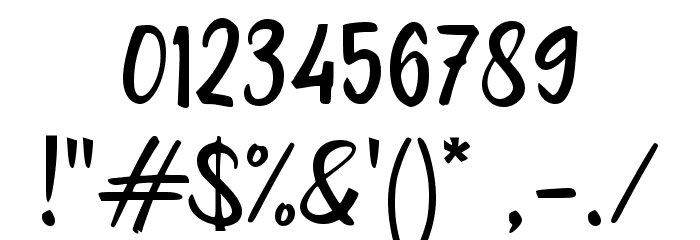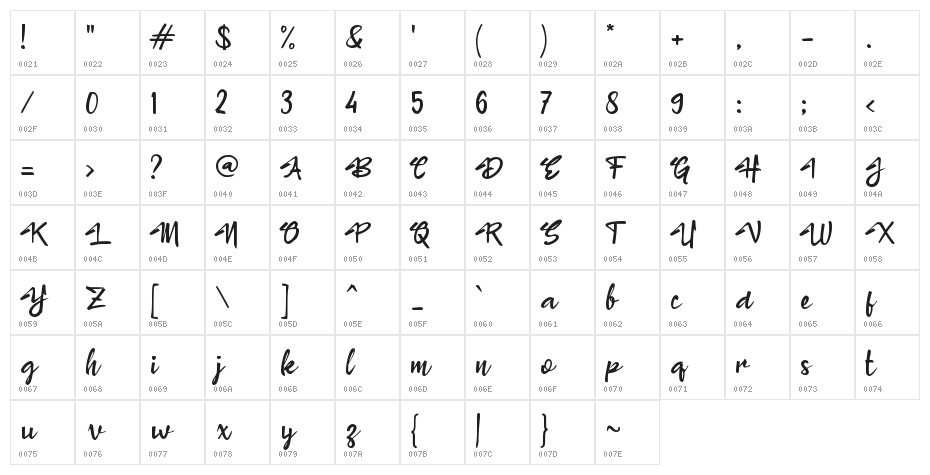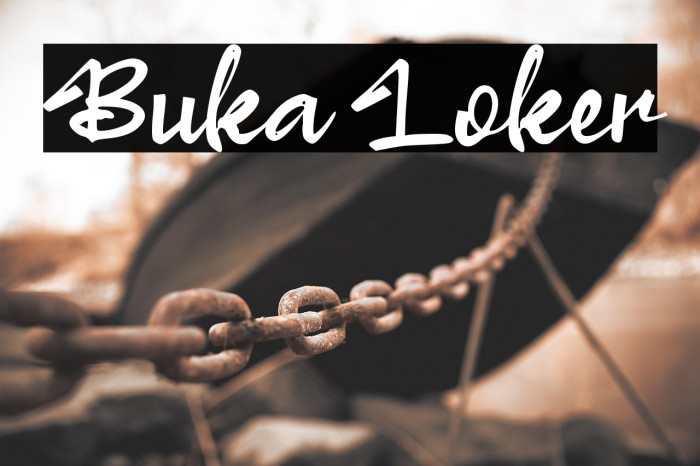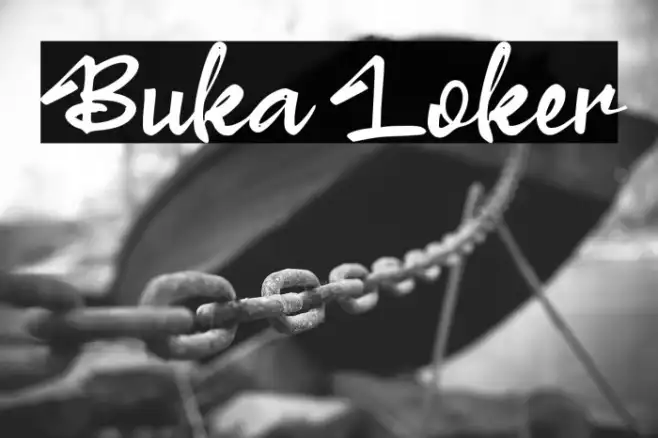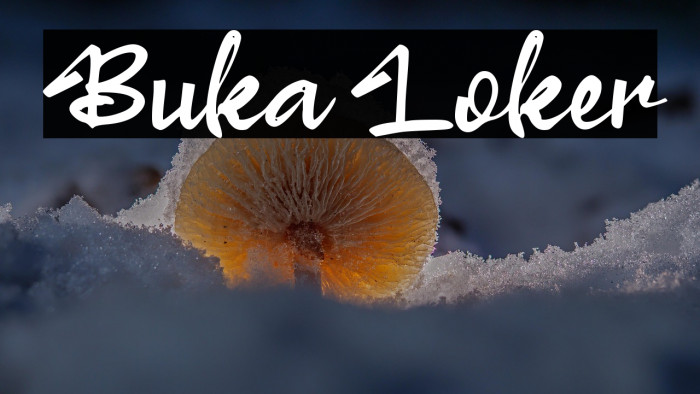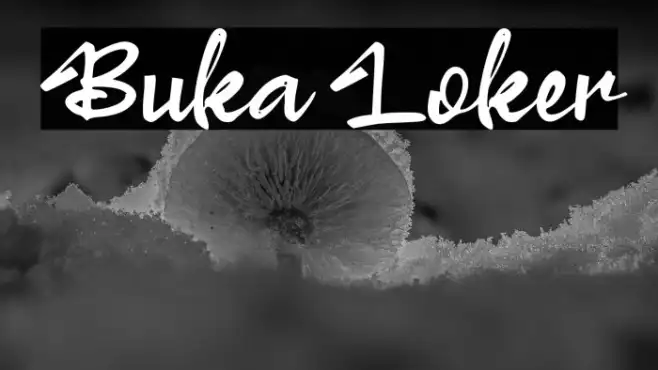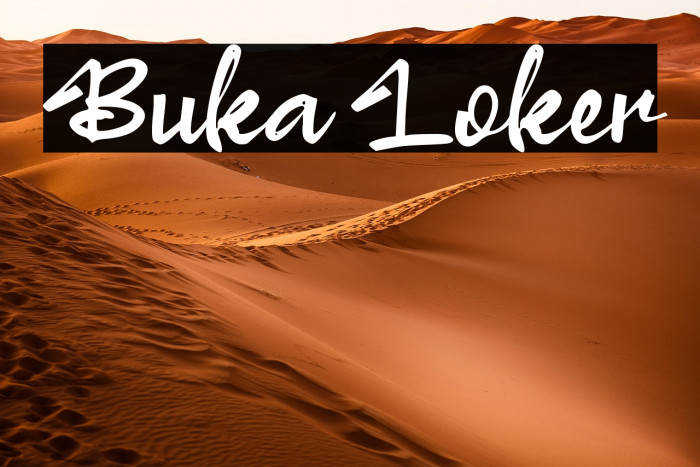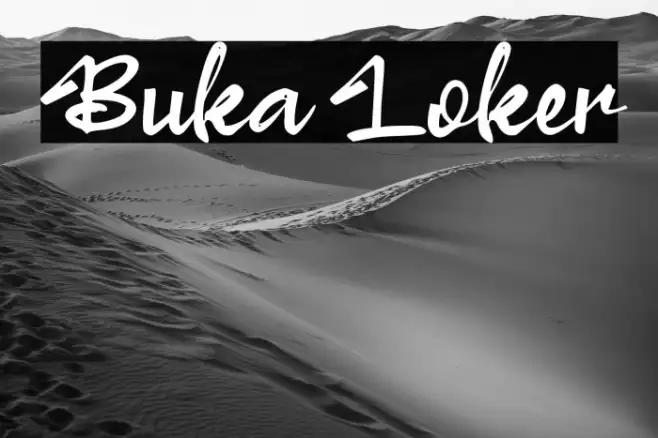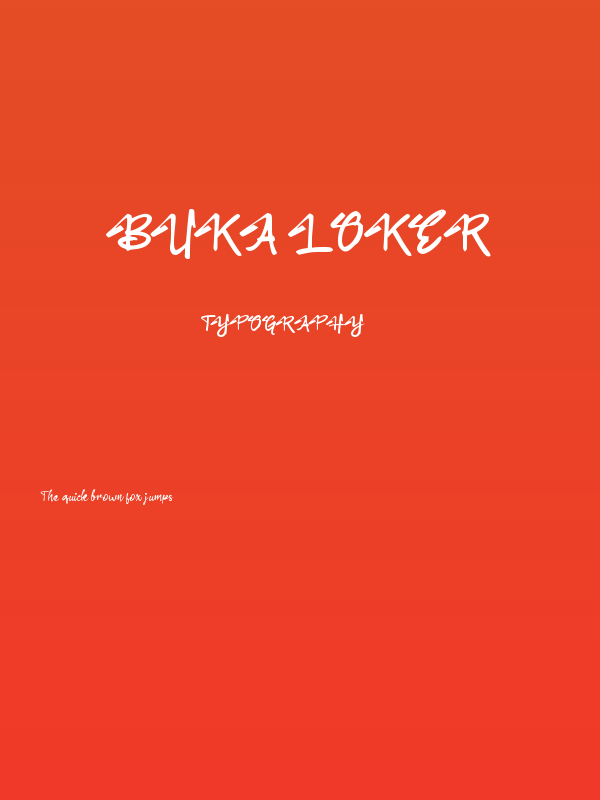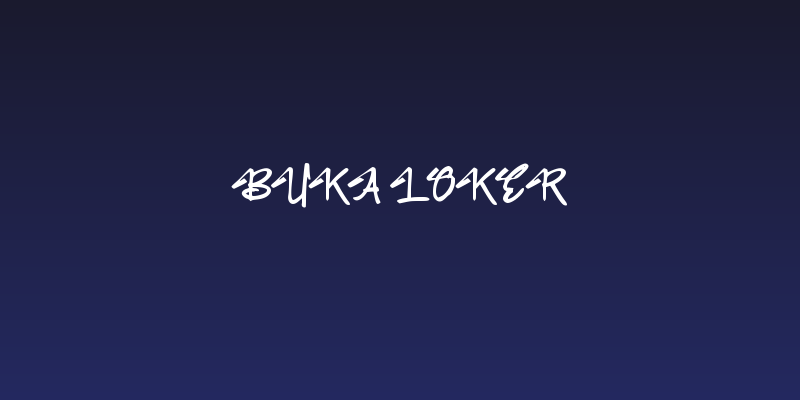
Buka Loker Font
Buka Loker Description
This font features a dynamic and energetic script style with a handwritten appearance. The letters are fluid and connected, giving a sense of movement and personality. The uppercase characters are bold and slightly slanted, while the lowercase letters maintain a consistent flow with rounded edges. Numbers and special characters are designed to match the playful and informal aesthetic, making it suitable for creative and casual applications. The overall look is modern and expressive, ideal for projects that require a personal touch.